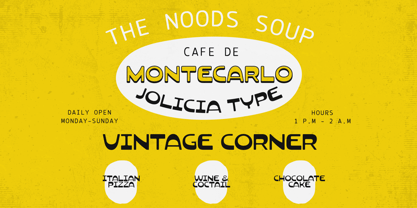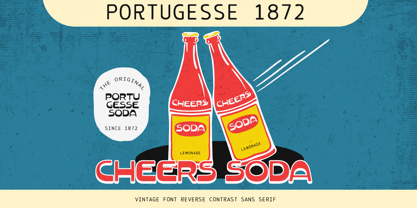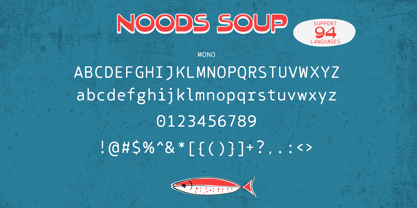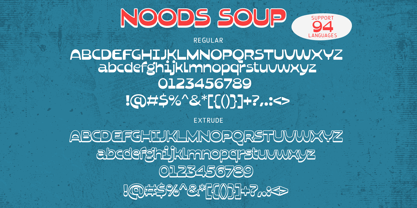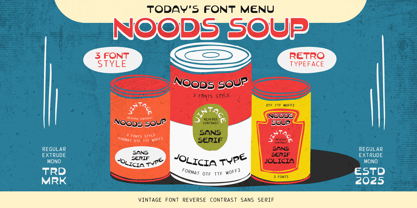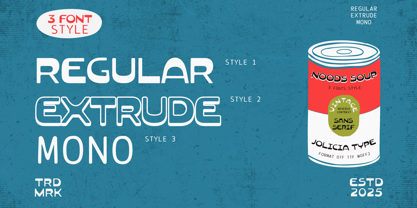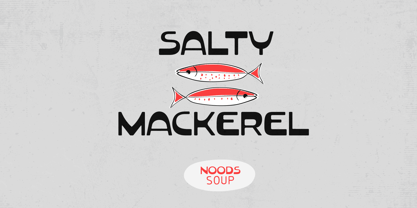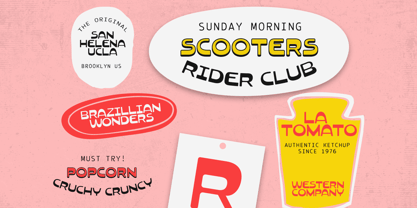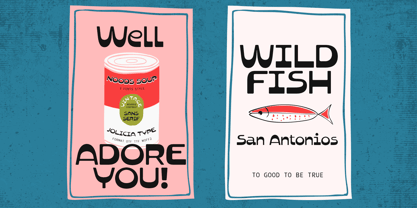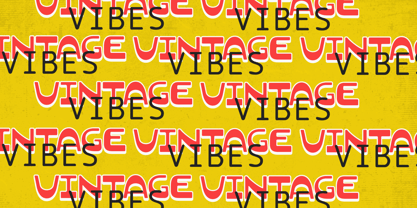
Noods Soup
by Jolicia Type
The Noods Soup Font Family was designed by Laire Banyu, Dyaharum Pungki Revitasari and published by Jolicia Type. Noods Soup contains 3 styles and family package options. More about this family
Step back in time with Noods Soup, a typeface that captures the playful spirit of classic retro lettering while remaining relevant for today's design needs. With its charming details and timeless appeal, this font is designed to bring instant character and personality to your work.
Noods Soup is a retro-inspired typeface with bold characters and a nostalgic touch. This font comes with a unique combination of styles that makes it versatile and perfect for all kinds of vintage-themed designs.
It includes 3 distinctive styles:
• Reverse Contrast Sans – bold and expressive with a striking retro twist.
• Extrude Style – adds dramatic shadow effects, perfect for eye-catching headlines.
• Monospaced Font – brings a typewriter-inspired classic feel with a modern retro vibe.
The blend of these styles makes Noods Soup an excellent choice for posters, logos, food packaging, beverage labels, signage, and retro branding projects. Each letterform is crafted to capture the nostalgic charm of old-school typography while remaining fresh and adaptable.